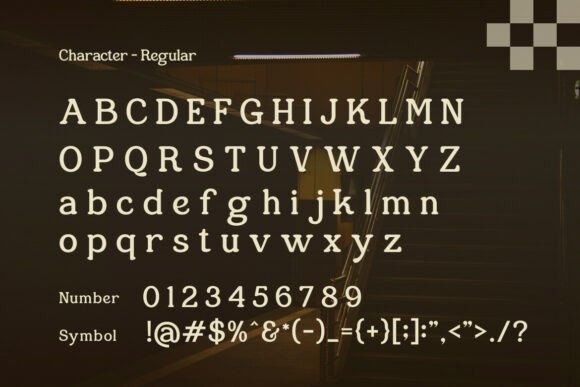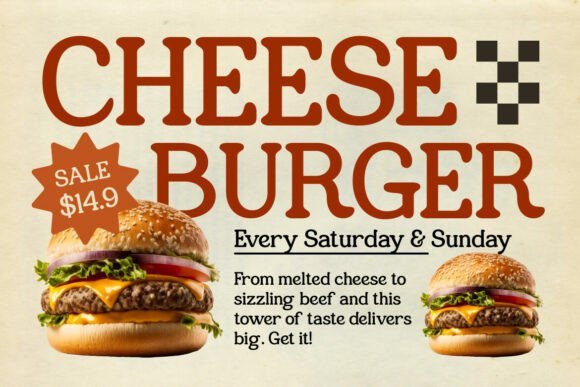
Wickborne Font
Wickborne is a modern serif typeface infused with vintage character and timeless elegance. It features refined curves, subtle contrast, and classic proportions that echo retro print aesthetics while maintaining a clean contemporary structure. Delivered in high-quality font formats, this typeface is designed for display and editorial use rather than extended body text.